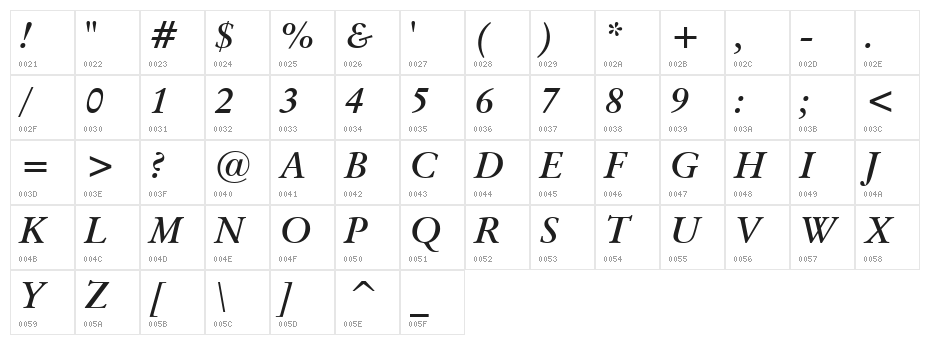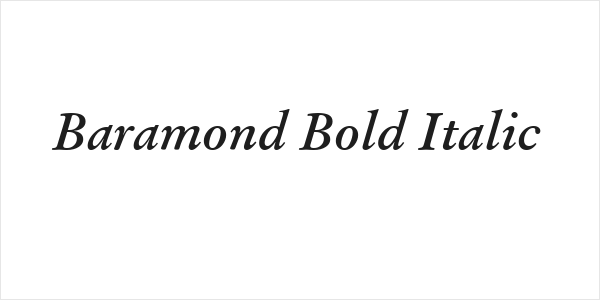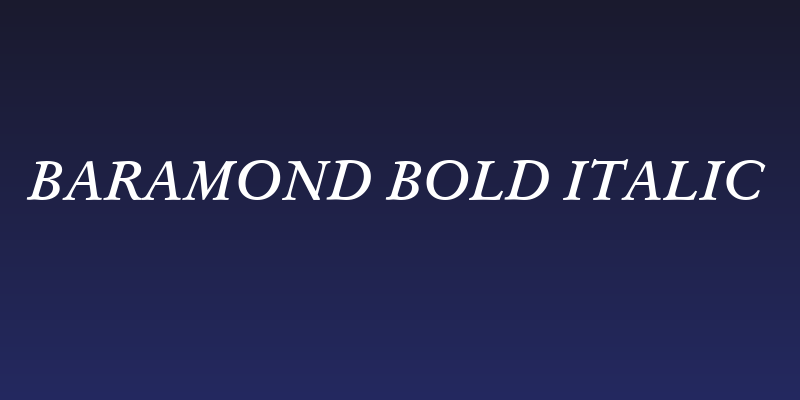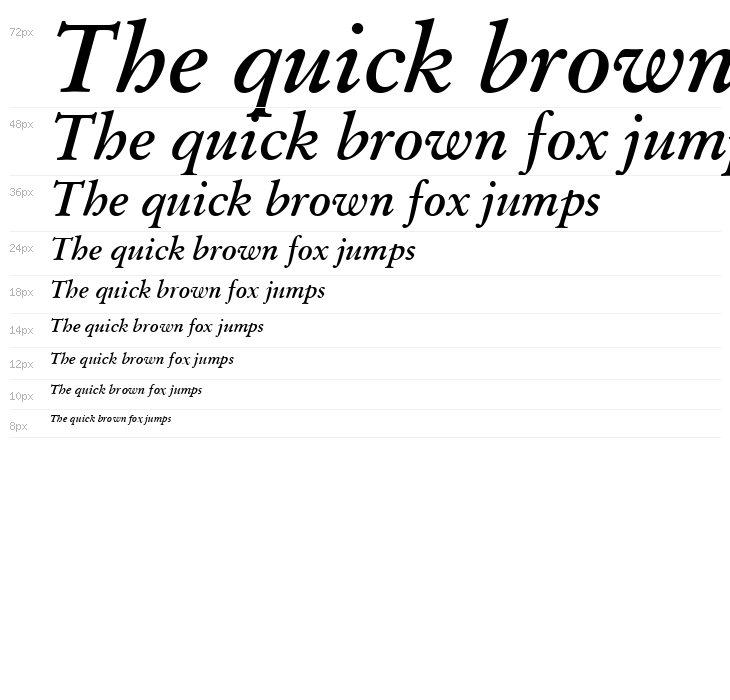
Baramond Bold Italic Font
Baramond Bold Italic Description
This font is a classic serif typeface with elegant italic styling, characterized by its smooth curves and refined strokes. The uppercase letters exhibit a traditional formality, while the lowercase letters maintain a graceful flow, making it suitable for sophisticated and professional designs. The numerals are clear and distinct, ensuring readability. Special characters are well-integrated, maintaining the overall aesthetic. The font's bold weight adds emphasis, making it ideal for headlines or titles that require a touch of elegance.
| Use Case | Headlines, Logos, Editorials |
| Proposed Projects | Ideal for book covers, formal invitations, branding for luxury products, and editorial layouts. |